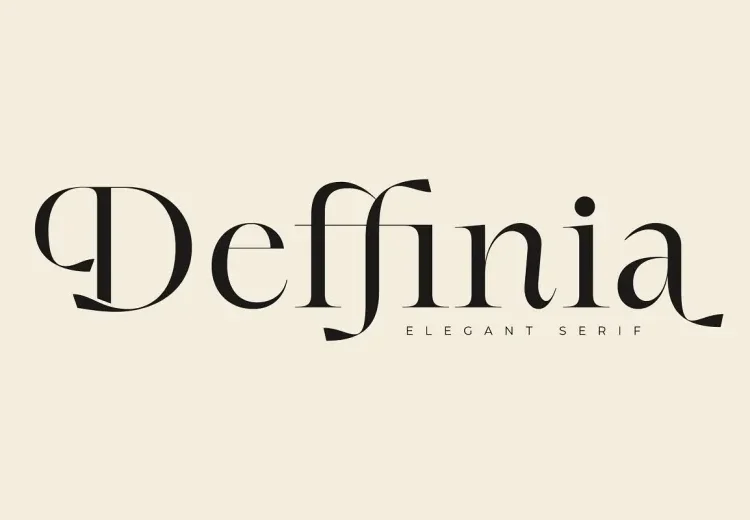
Deffinia Font
Deffinia is an elegant font that blends vintage charm with modern sophistication, making a bold statement in logos, trademarks, headlines, and more. Its design features Basic Latin Glyphs, alternative fonts, and ligatures, offering a range of creative possibilities while maintaining a global appeal with its classic aesthetic.
This font also includes an optional Privacy Use Area (PUA) feature, allowing for further customization and ensuring that Deffinia can adapt to diverse design needs. Whether you’re aiming for a nostalgic touch or a standout contemporary look, Deffinia provides the versatility and impact needed to enhance your work.